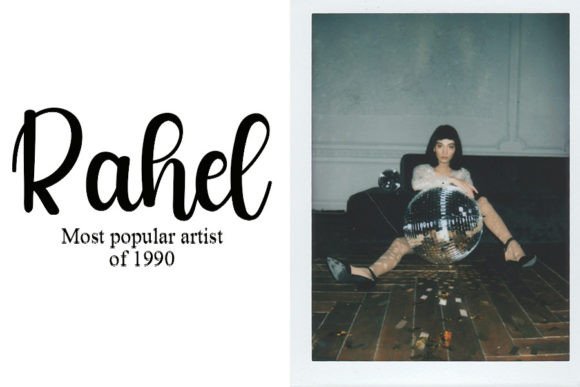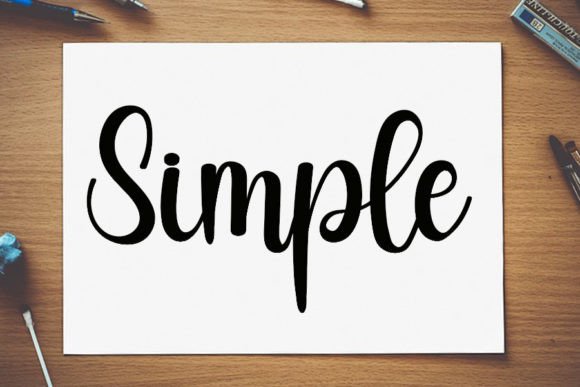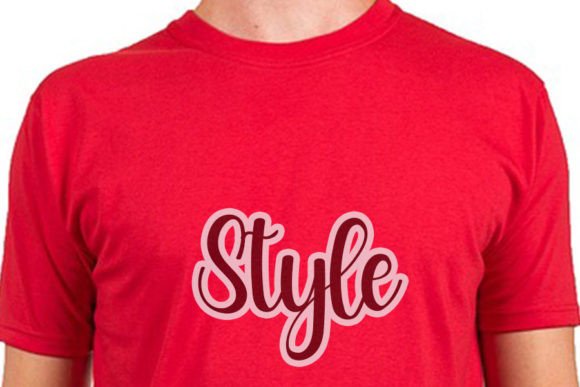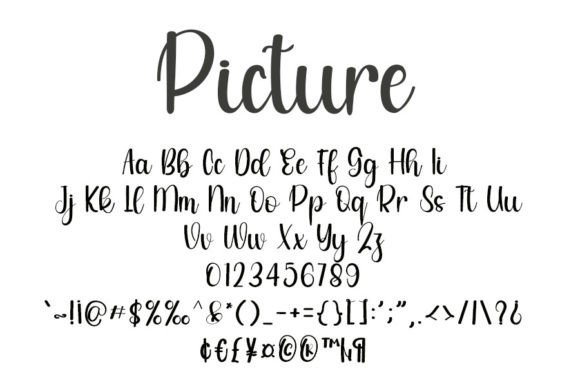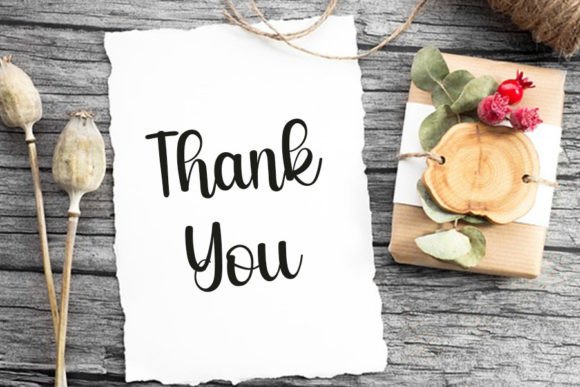
Picture Font
Add elegance and charm to your designs with the Picture font, a lovely handwritten script that is perfectly balanced. This font features strokes that are neither too thin nor too thick, offering a varied style that enhances the beauty of any project.
The Picture font is designed with smooth, flowing lines that provide a natural and artistic feel. Whether you are working on logos, invitations, branding materials, or social media posts, this font brings a polished and professional touch.
You can use the Picture font for a variety of creative projects. It is ideal for wedding invitations, greeting cards, posters, product packaging, and much more. Its balanced strokes ensure clear readability while maintaining the warmth of handwritten typography.
Despite its artistic style, the Picture font offers excellent clarity at different sizes. Whether used for headlines or body text, it helps communicate your message clearly and beautifully.
Using the Picture font will add a unique, balanced, and charming character to your projects. If you want a handwritten script that combines elegance and versatility, this font is an excellent addition to your collection.
In summary, the Picture font is a balanced, lovely, and versatile handwritten script. Perfect for logos, invitations, branding, social media, and more, it adds charm and sophistication to every design. Download it today and enhance your creative projects with Picture.